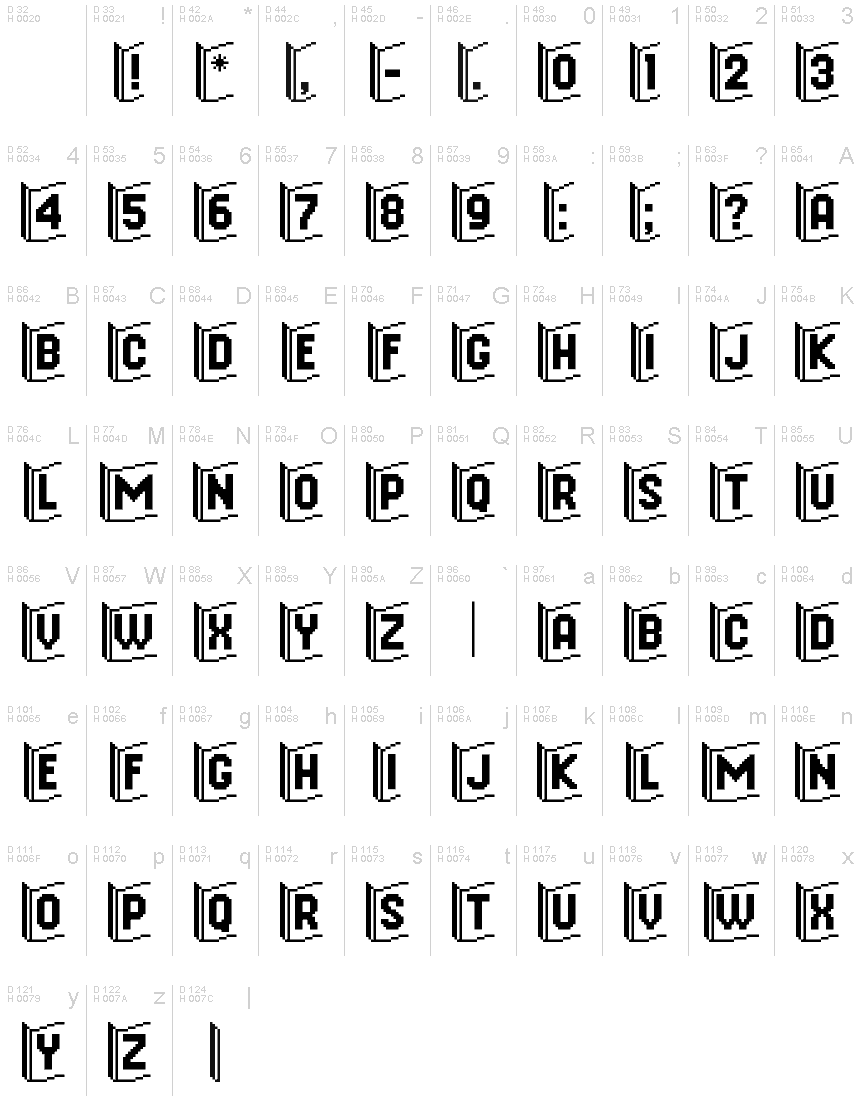
Stadium Regular
Designer description: Stadium, 24-point "banner" font from GEOS on the Commodore 64. Suitable for headings. The original is upper case only, 0-9, and limited punctuation. I've made lower case identical to upper case, and added closing bars to the grave and pipe characters to achieve a couple of effects.
There was no direct TTF alternative to this one, I've been seeking it for a long time, now it's here :)
Designer description: Stadium, 24-point "banner" font from GEOS on the Commodore 64. Suitable for headings. The original is upper case only, 0-9, and limited punctuation. I've made lower case identical to upper case, and added closing bars to the grave and pipe characters to achieve a couple of effects.
There was no direct TTF alternative to this one, I've been seeking it for a long time, now it's here :)